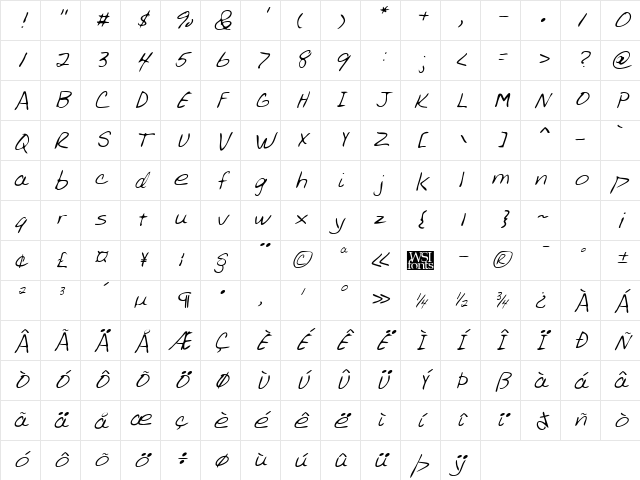
AllensHand Regular Free Font
AllensHand Regular
Foundry: (c) Weatherly Systems, Inc
Complete AllensHand Regular glyph index. Displaying only characters natively supported by AllensHand Regular font.
Design Context for AllensHand
AllensHand flows with the natural rhythm of handwritten lettering, making it ideal for designs that call for warmth and personal expression.
Font Pairing: Combine AllensHand with a simple geometric sans for maximum contrast - the tension between flowing curves and clean structure is a classic typographic pairing.
Pro Tip: Use AllensHand for short runs of text - names, titles, or taglines. Extended body copy in script faces tires the eye quickly.